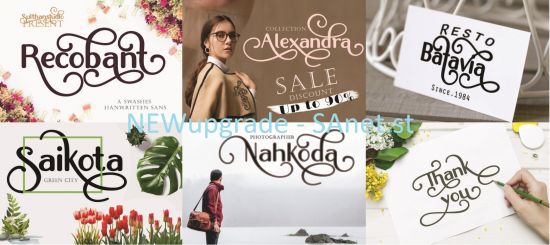
Recobant is fancy and elegant, but also very authentic. This versatile sans serif font has a wide range of applications ranging from seasonal crafting to professional projects and is guaranteed to add a joyful touch to your next design.
This font is PUA encoded which means you can access all of the gorgeous glyphs and swashes with ease! It also features a wealth of special features including alternate glyphs and ligatures.